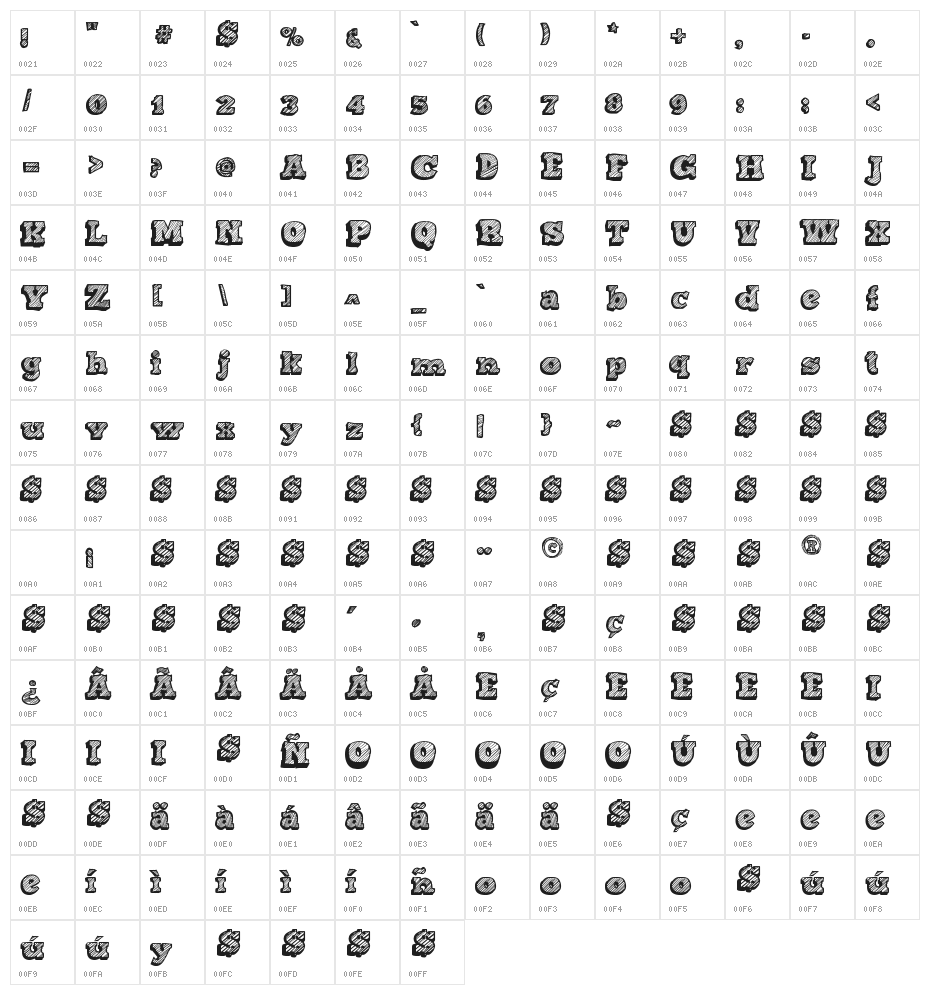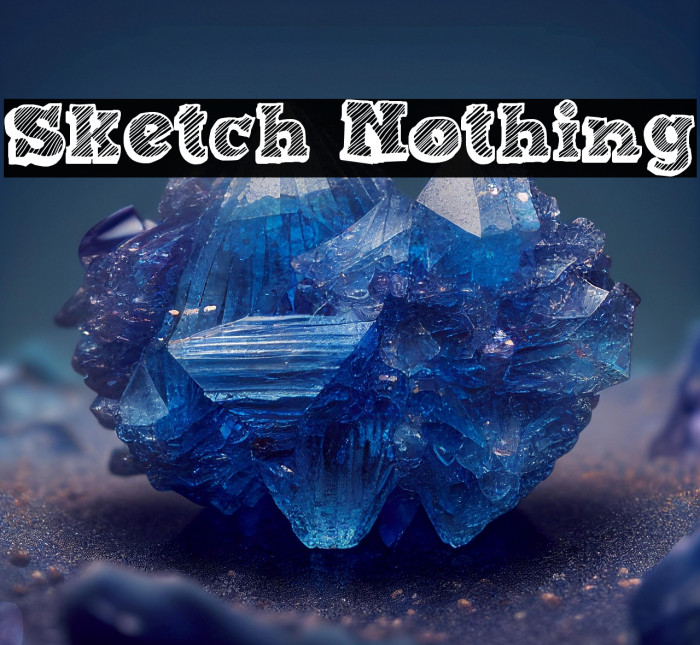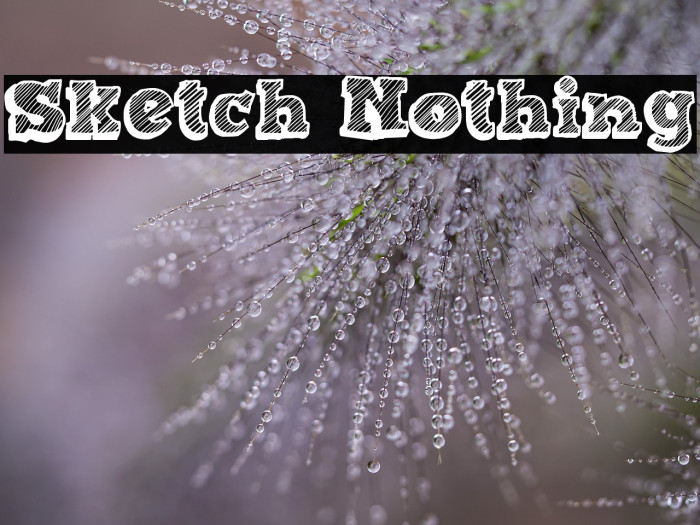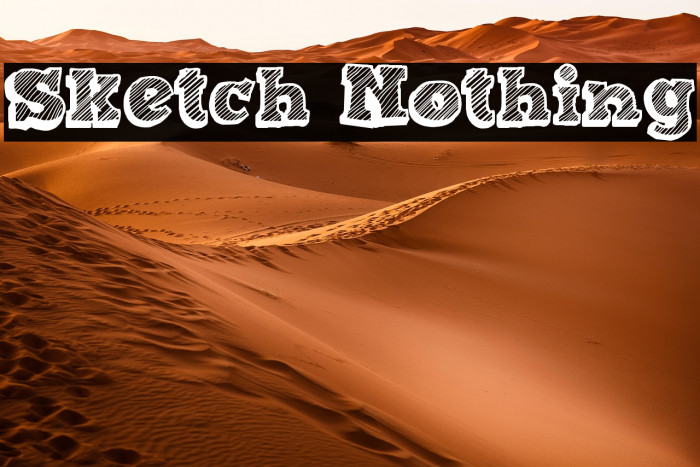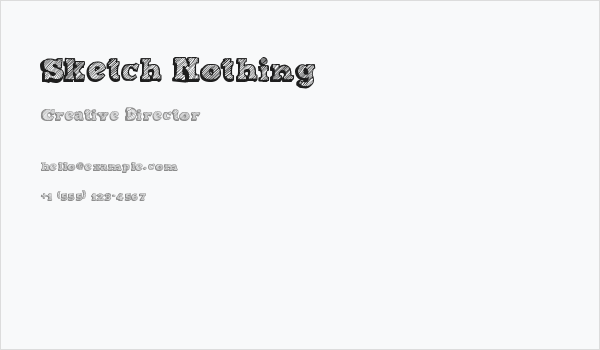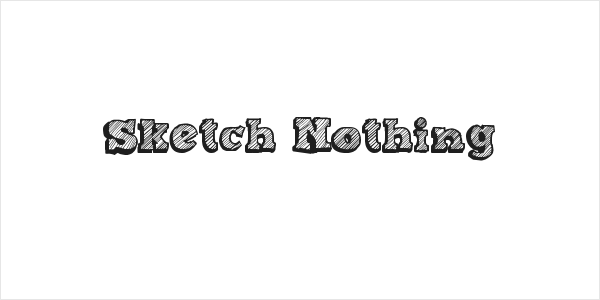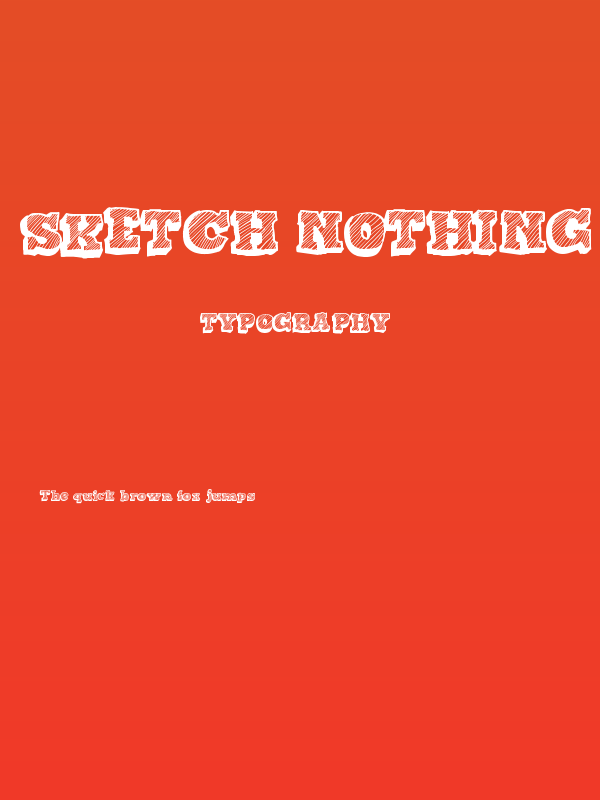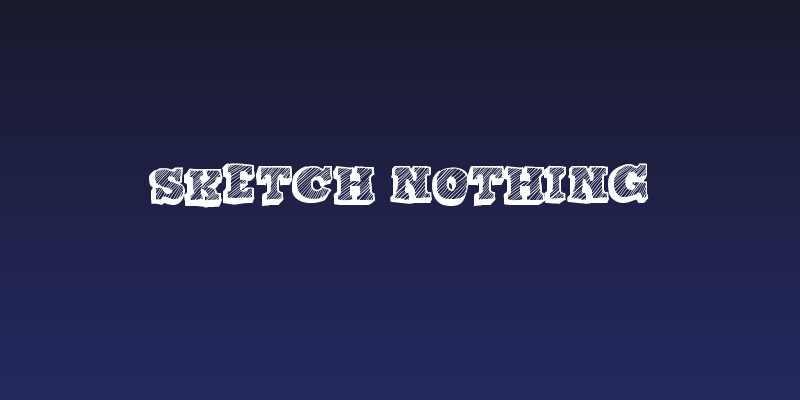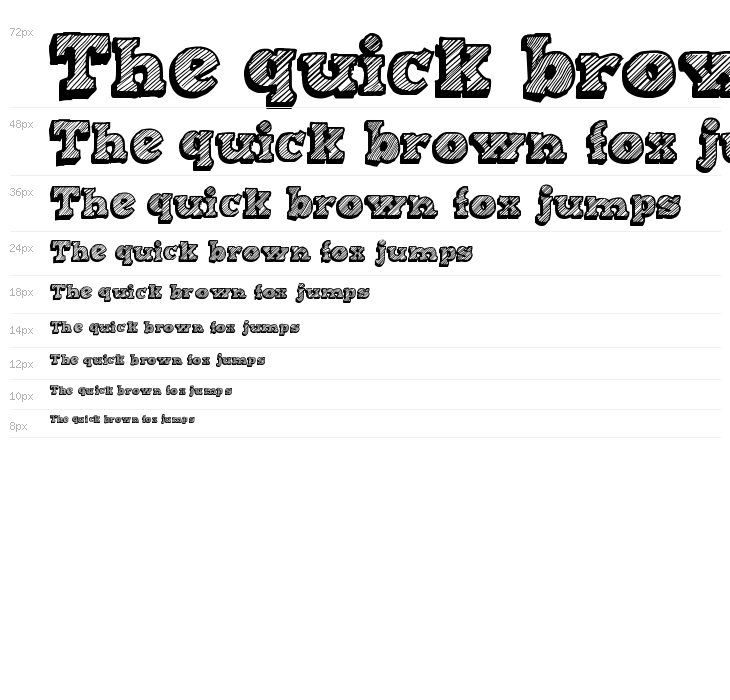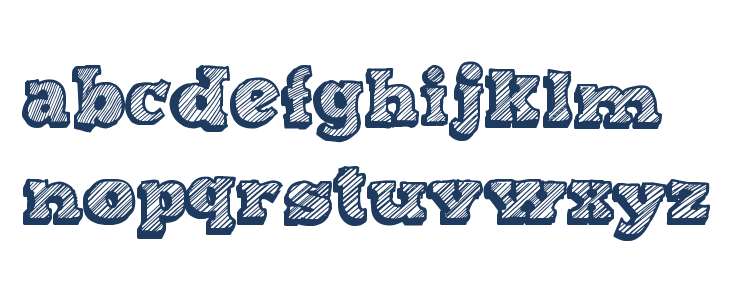
Sketch Nothing Font
Sketch Nothing Description
This font features a bold, sketch-like appearance with a hand-drawn quality. The characters are outlined with a thick, black stroke and filled with diagonal hatching, giving them a textured, three-dimensional look. The uppercase and lowercase letters maintain a consistent style, with rounded edges and a playful, informal vibe. Numbers and special characters follow the same design, ensuring uniformity across all glyphs. The font's unique style makes it stand out, ideal for projects that require a creative and artistic touch.
| Proposed Projects | Ideal for posters, comic books, children's books, and creative branding projects. |